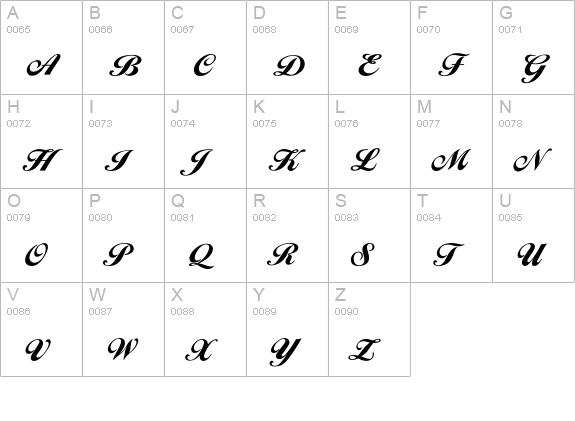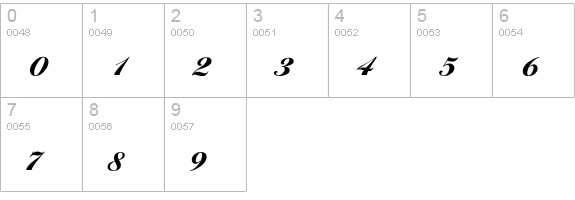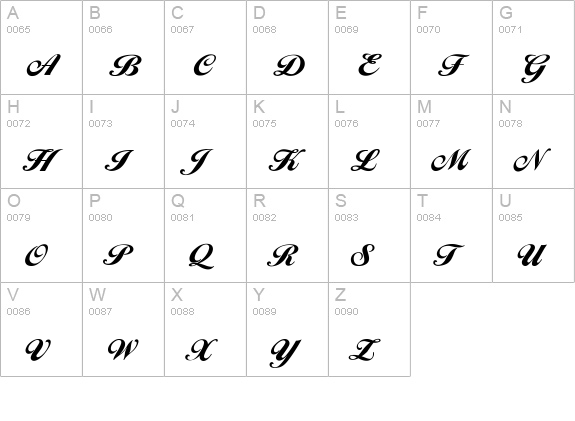
Iballantines-Heavy Font Details
Iballantines-Heavy is a heavy, high-impact variant in the Iballantines typeface family \xE2\x80\x94 well suited to high-impact headlines, posters, and display advertising.
Introducing Iballantines-Heavy font, a bold and powerful typeface that commands attention with its strong presence and distinctive letterforms. This font is the perfect choice for projects that require a touch of grandeur and sophistication. Iballantines-Heavy font boasts a robust and commanding design, making it ideal for headlines, logos, and branding materials. Its thick and bold strokes exude confidence and strength, ensuring that your message is delivered with impact and authority. But what sets Iballantines-Heavy font apart from other fonts is its accessibility. It is freely available to download at FontsMarket.com, allowing designers and creatives to incorporate this stunning typeface into their projects without any financial constraint. With its generous availability, Iballantines-Heavy font gives designers the freedom to explore and experiment, unleashing their creativity without limitations. Whether you're working on a personal project or a professional assignment, this font will elevate your designs to new heights. The versatility of Iballantines-Heavy font is unmatched, as it effortlessly adapts to various design styles and themes. It harmoniously complements both modern and traditional aesthetics, making it a go-to choice for a wide range of applications. With its timeless appeal and distinctive character, Iballantines-Heavy font is sure to leave a lasting impression on your audience. Its bold presence and refined elegance will captivate attention and elevate your designs to a whole new level. So why wait? Download Iballantines-Heavy font for free at FontsMarket.com and unlock the potential of your design projects. Embrace the power, beauty, and versatility of this remarkable font and create designs that truly stand out.